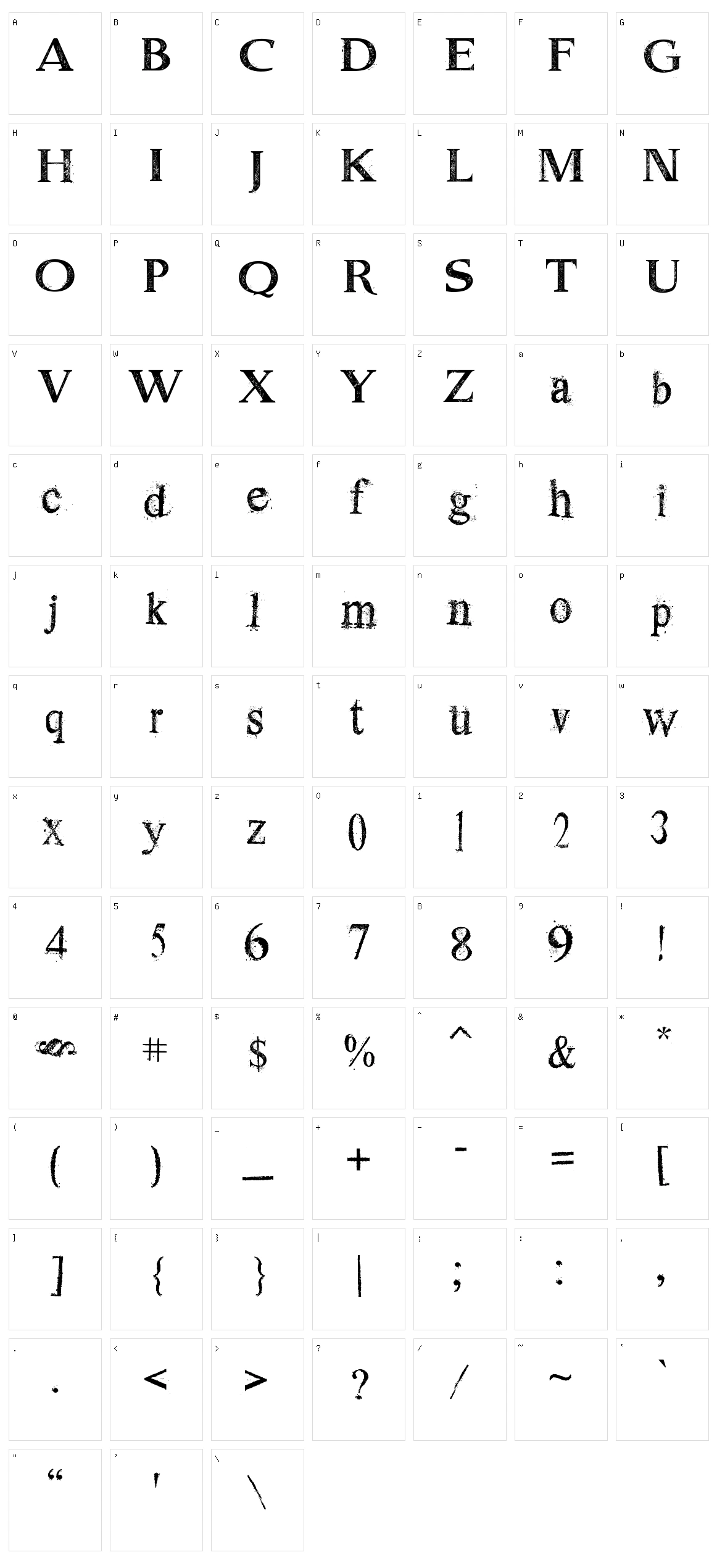
The free font Dust Serif is carefully designed by Galdino Otten Fonts, showcasing a thoughtful balance of creativity and usability and falls under the Eroded font style. When you download the ZIP file, it contains only 264.79 KB of font files, making it lightweight and quick to download. Please review the license details below to understand permitted usage and distribution rights. If license information is not available, we recommend using this font for personal projects only or contacting the author directly for commercial usage permissions.